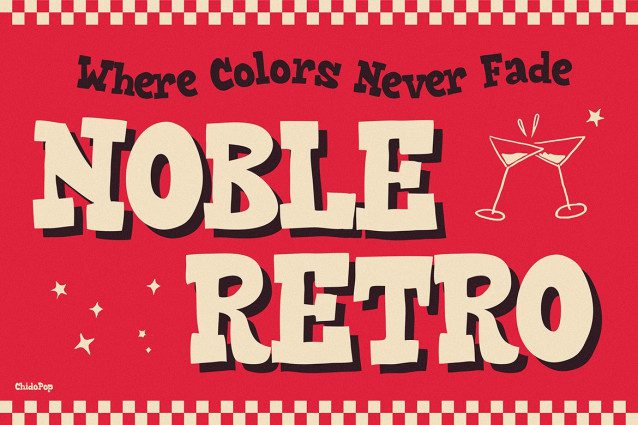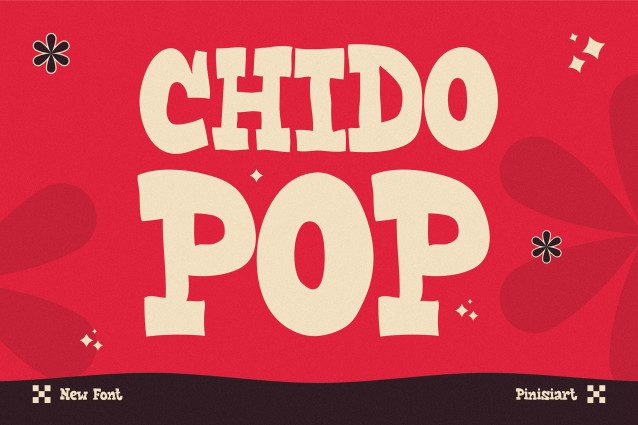
Chido Pop Font is a joyful and bold typeface that instantly lights up your design with energy and warmth. From the very first glance, it evokes nostalgia and excitement through its retro hand-drawn charm. Designed with love and crafted for creativity, this font merges vintage aesthetics with playful modern spirit. Every curve feels organic, every line feels expressive â creating a font thatâs both timeless and fresh.
Moreover, Chido Pop brings a perfect blend of fun and clarity. It is strong enough for headlines yet soft enough for childrenâs projects. As a result, your designs not only stand out but also feel approachable and full of personality. Whether you are creating event posters, kidsâ branding, or eye-catching ads, this font ensures that your message is as lively as your imagination.
In addition, its rounded edges and slightly quirky proportions give it a handcrafted soul that feels inviting and warm. Therefore, it adds a human touch to every composition â turning ordinary text into something truly memorable.
Kids Font Chido Pop is perfect for designers, creators, teachers, and small business owners who want to communicate fun and authenticity. It fits wonderfully into a wide variety of projects, including:
Childrenâs books, story titles, and educational illustrations
Retro-themed branding, cafe signage, and vintage packaging
Playful merchandise, T-shirt graphics, and greeting cards
Sales posters, seasonal promos, and digital marketing visuals
Furthermore, the font works beautifully for both print and digital media. Its charming balance between retro and modern elements makes it suitable for audiences of all ages. Additionally, the complete set of uppercase, lowercase, numbers, punctuation, and multilingual characters ensures global usability. Hence, Chido Pop is not just a fontâitâs a creative experience that grows with your imagination.
Youâll love Kids Font Chido Pop because it inspires creativity and adds a spark of happiness to every project. It doesnât just decorate text â it transforms it. With each letter dancing across the page, your message feels more dynamic and emotionally engaging. Moreover, this font was made to help you express joy, confidence, and originality.
If you can dream it, you can do it â and Chido Pop helps your ideas pop off the screen with a smile. So whether youâre designing for a brand, a classroom, or a personal project, this font will make your work feel alive, unique, and full of heart.